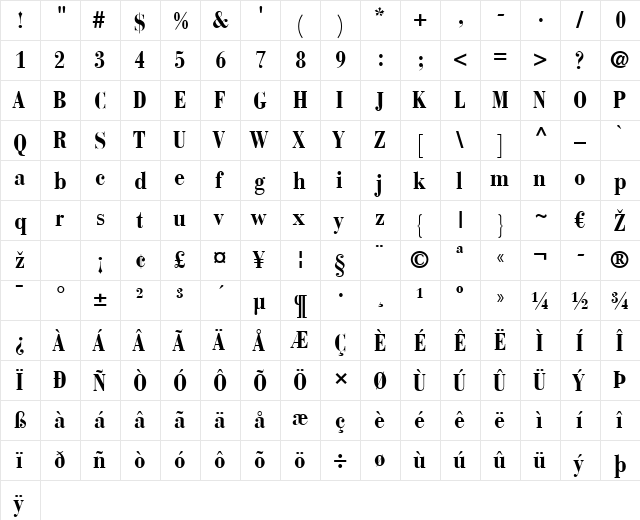
BauerBodoni LT BoldCond Regular Font Preview
Design Context for BauerBodoni LT BoldCond Typeface
BauerBodoni LT BoldCond offers clean, dependable letterforms without strong stylistic allegiance, making it a practical choice for designers who need flexibility. The heavy weight commands attention and anchors typographic hierarchies. The condensed width makes it efficient for tight spaces without sacrificing legibility.